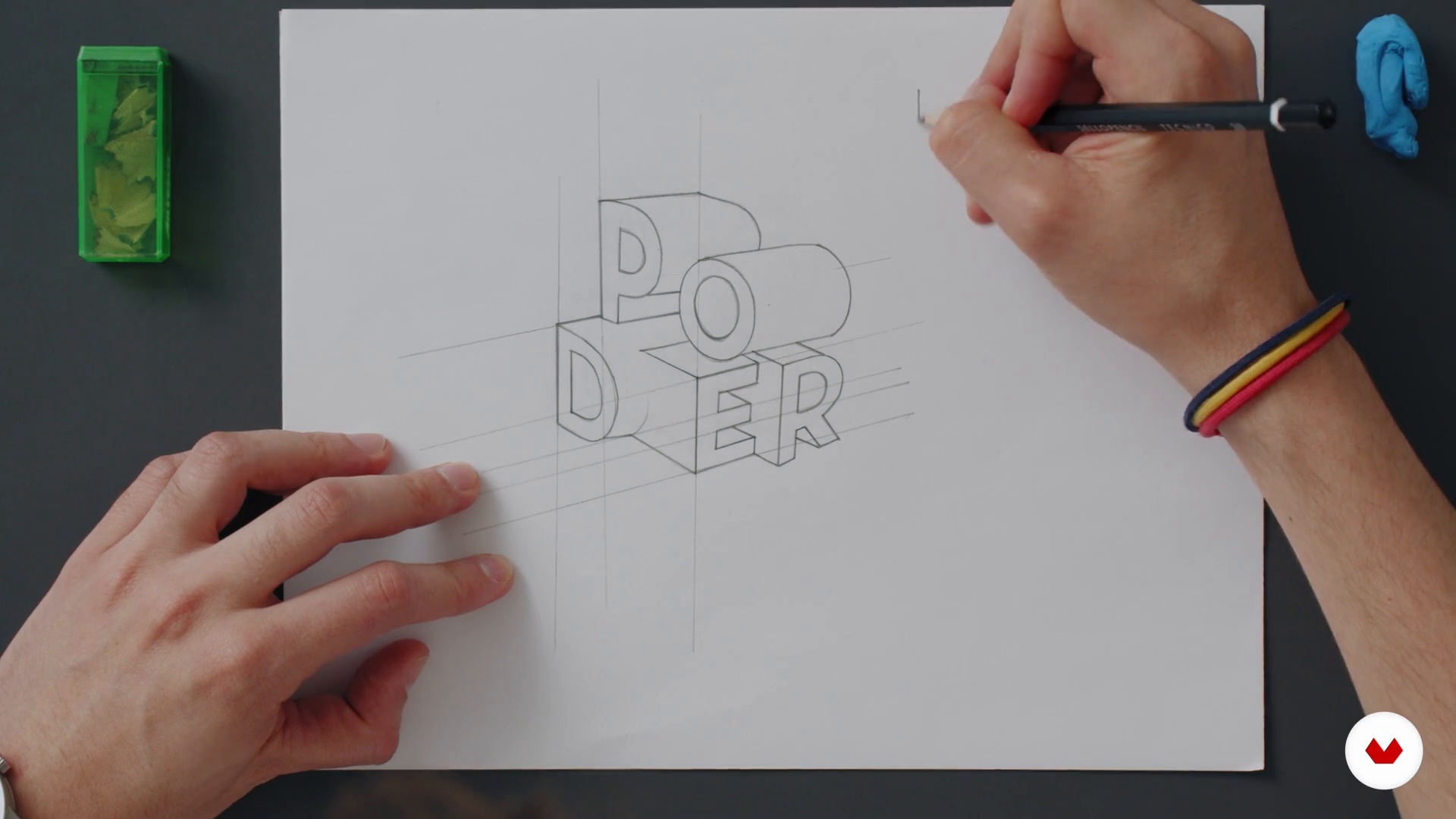
3D Font Design with a Metallic Finish
Sketches
A course by Dawlym Murillo Jaramillo , Graphic Designer Specializing in Lettering
About the video: Sketches
“This is one of the stages that I enjoy the most, since it is where our ideas become reality on paper. ”
In this video lesson Dawlym Murillo Jaramillo addresses the topic: Sketches, which is part of the Domestika online course: 3D Font Design with a Metallic Finish. Learn three-dimensional modeling techniques in Cinema 4D to add a realistic and vibrant touch to your lettering.
“In this lesson we will see the sketches and how to make them. I will give you some tips that may help you. when vectorizing them and taking them to Illustrator. I always like to work on sketches on paper initially because it gives me more freedom when playing with letters. Many people go directly to the computer and make the sketch directly in Illustrator or Photoshop, But I recommend doing it on paper because it gives you the freedom to play with a pencil and an eraser and correct certain strokes that you may or may not like. Lettering can be defined as the art of drawing letters. It is us...”
Originally from Colombia, Dawlym Jaramillo is a graphic designer specializing in lettering. With more than 9 years of experience in the field, he has applied his letters to product packaging, single covers for artists, and branding projects.
In addition, he has been selected for two consecutive years to showcase his work in the book Typism, which brings together the best calligraphy and typography in the world.